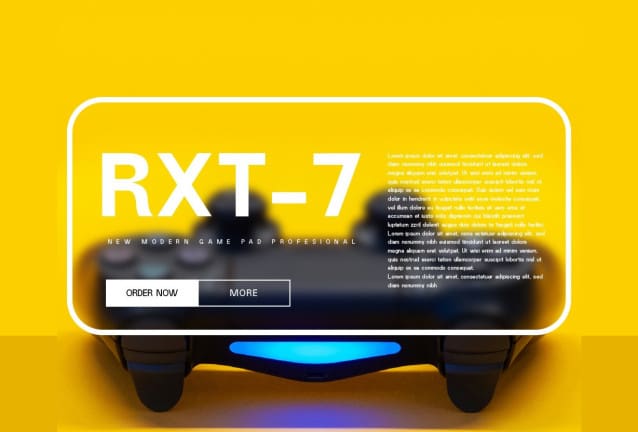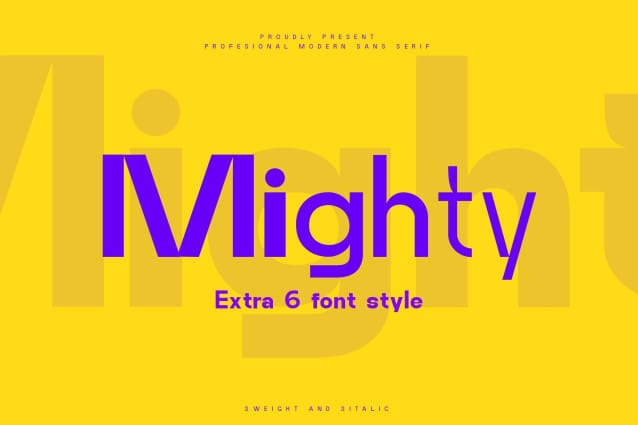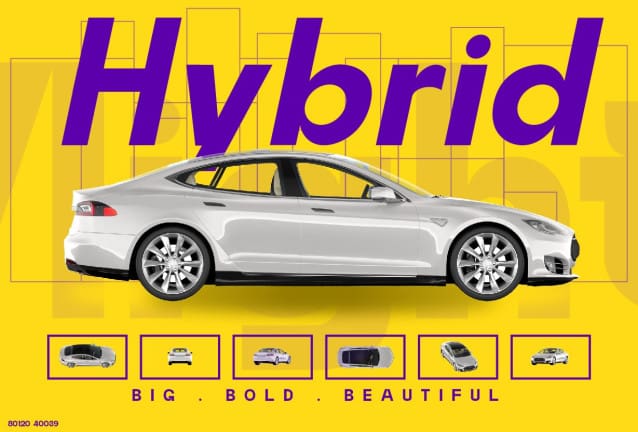
Mighty Font Family
Mighty Font Family, with a simple and minimalist design. With a wireless style that has a timeless appeal and great versatility. This font has 3 variations ranging from light to black or is called a font family that can work in many places including web design and printed materials and make it bolder and easier to read. Mighty font can be used in modern and contemporary designs and is suitable for a variety of media such as computer screens, web posters, magazines, geometric media and other digital media. It is therefore suitable for use in designs that require clarity and firmness in each letter